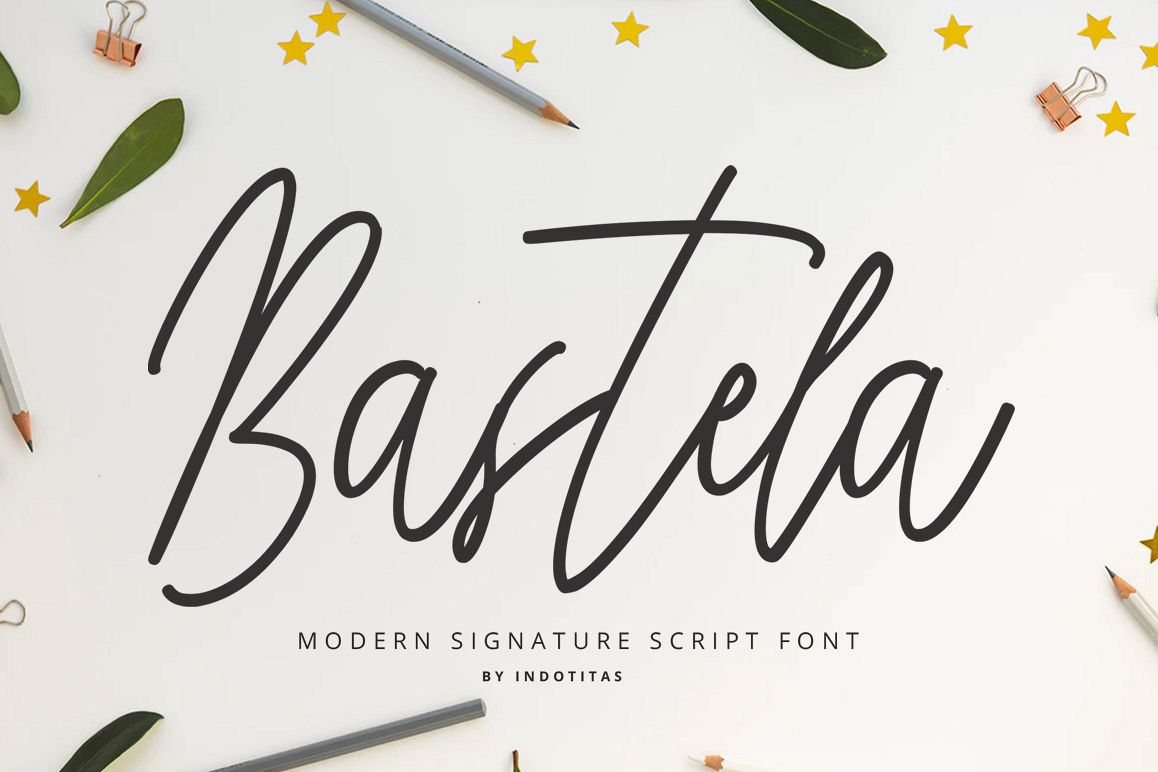
Bastela Signature Font
Introducing to Bastela Signature Font
Bastela is signature font script, ideal for use in projects that need an organic and natural style. This font is great for logo, logotype, branding,wedding, fashion, label, book cover, t-shirt, instagram post, and other, and can add an elegant and classy look to your work.
• Basic Latin A-Z and a-z, Numbers, & Symbols